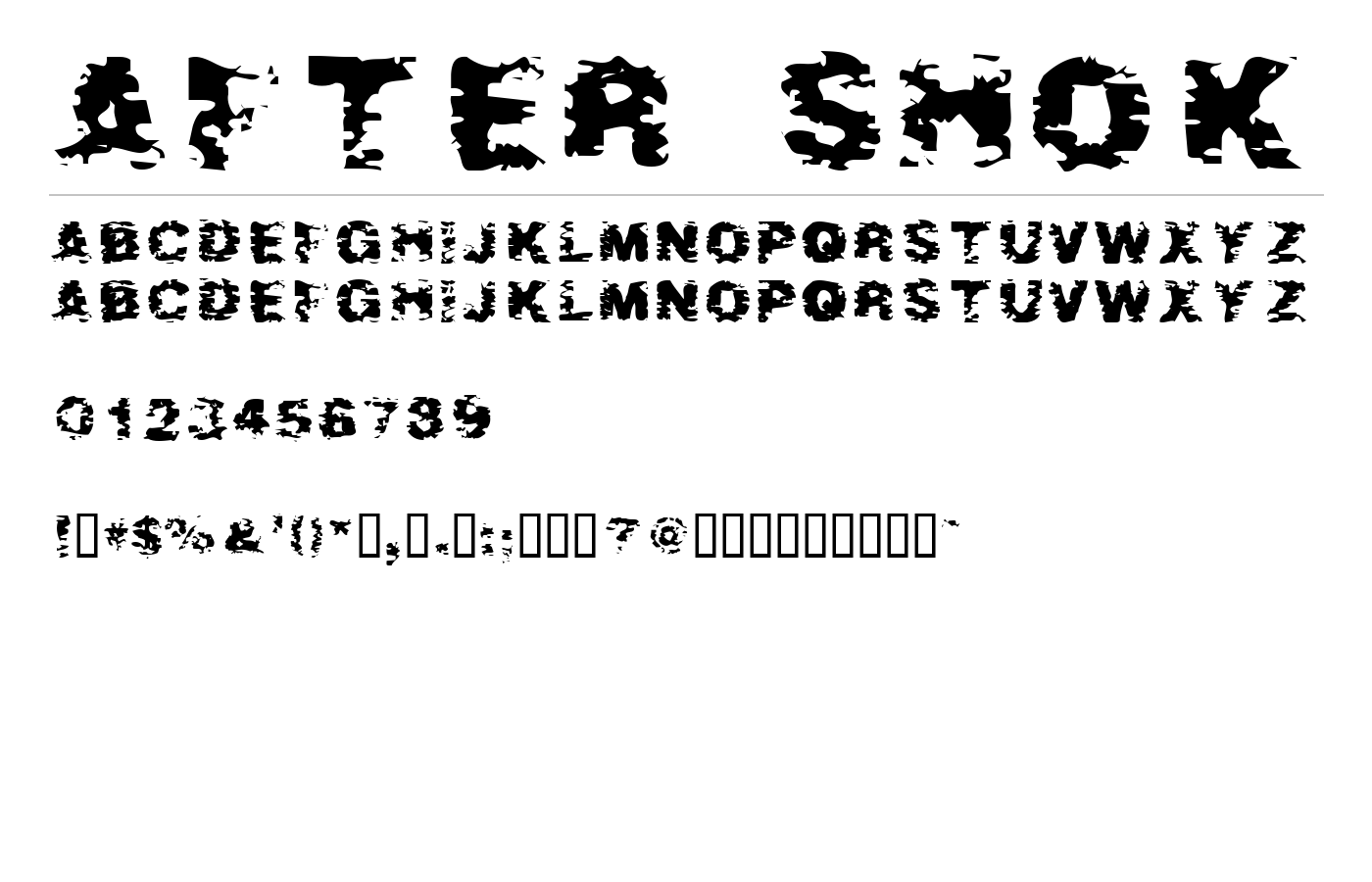
After Shok is a bold, distressed display font with heavy weight and a rough, eroded texture that gives it a chaotic, grunge-style appearance. Its uppercase letters are uniformly wide with a strong presence, making it ideal for edgy headlines, posters, or branding that seeks a rebellious and dynamic vibe. This font works best in creative projects where a raw, unconventional look is desired rather than in long texts or clean designs.
After Shok Font
About After Shok Font